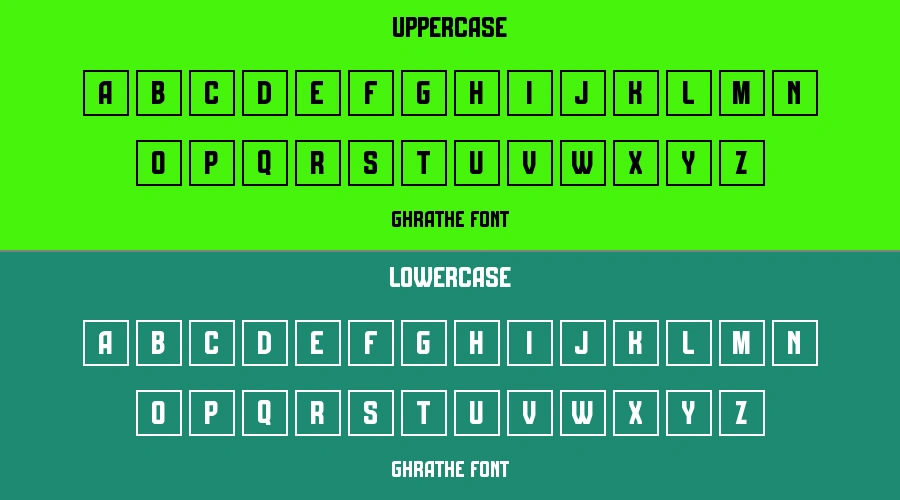
About Ghrathe Font
Designed with precision, Ghrathe Font merges modular forms with classic beauty in every character. This versatility makes it particularly effective for merchandise graphics, where flexibility and traditional values directly impact communication quality. Each letterform demonstrates meticulous craftsmanship.
Technical excellence shines through elements like fluid motion and mid-word alternates, enhancing typographic versatility. In product names settings, Ghrathe Font proves its worth through superior large format rendering. The thoughtful execution of ascender height and user perception ensures professional results.